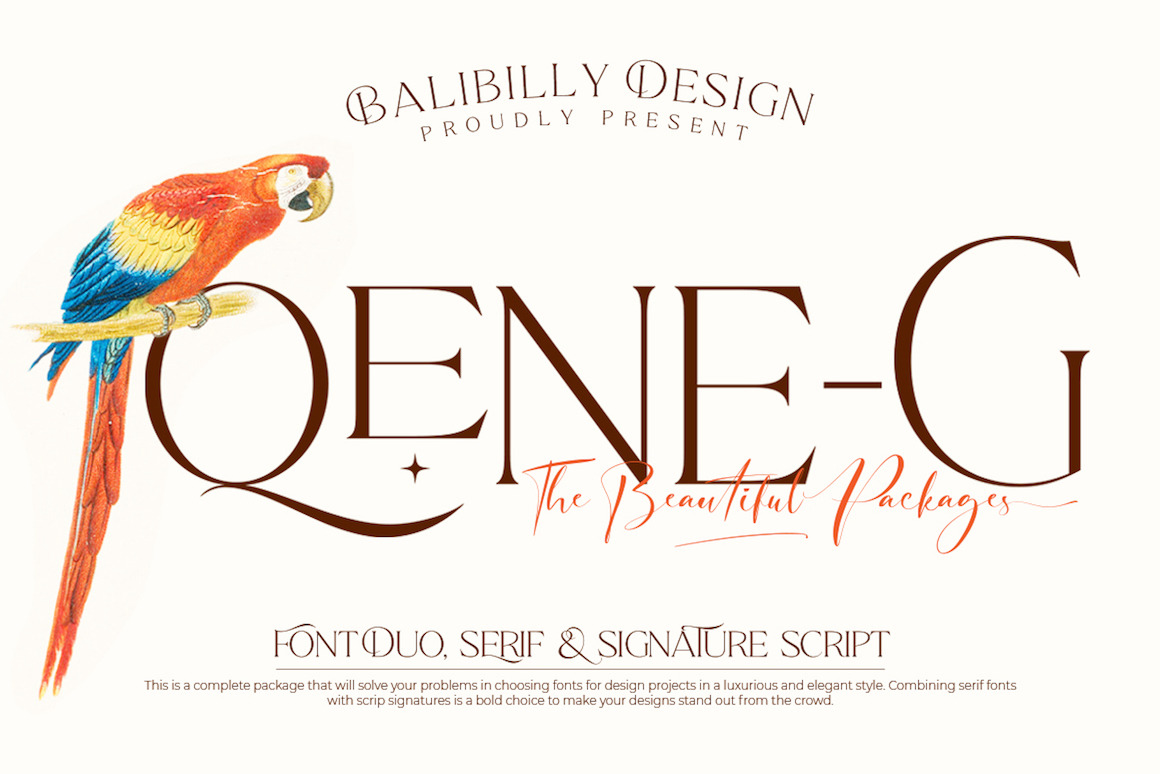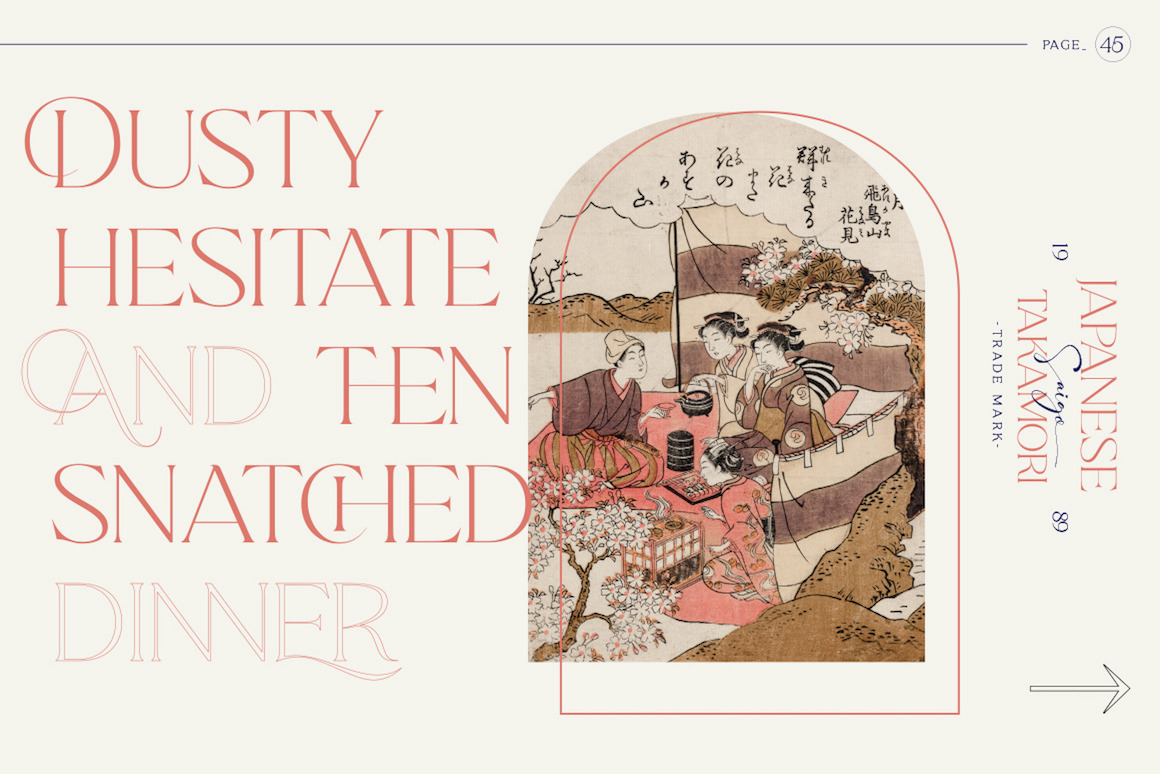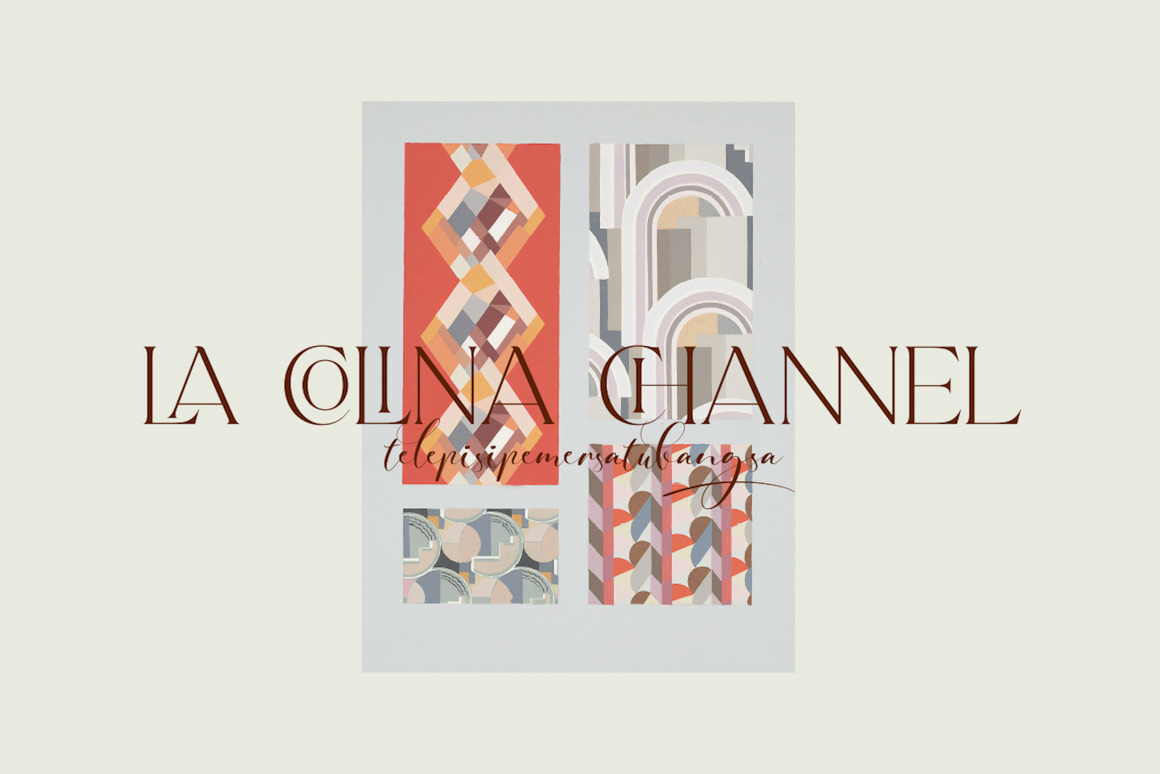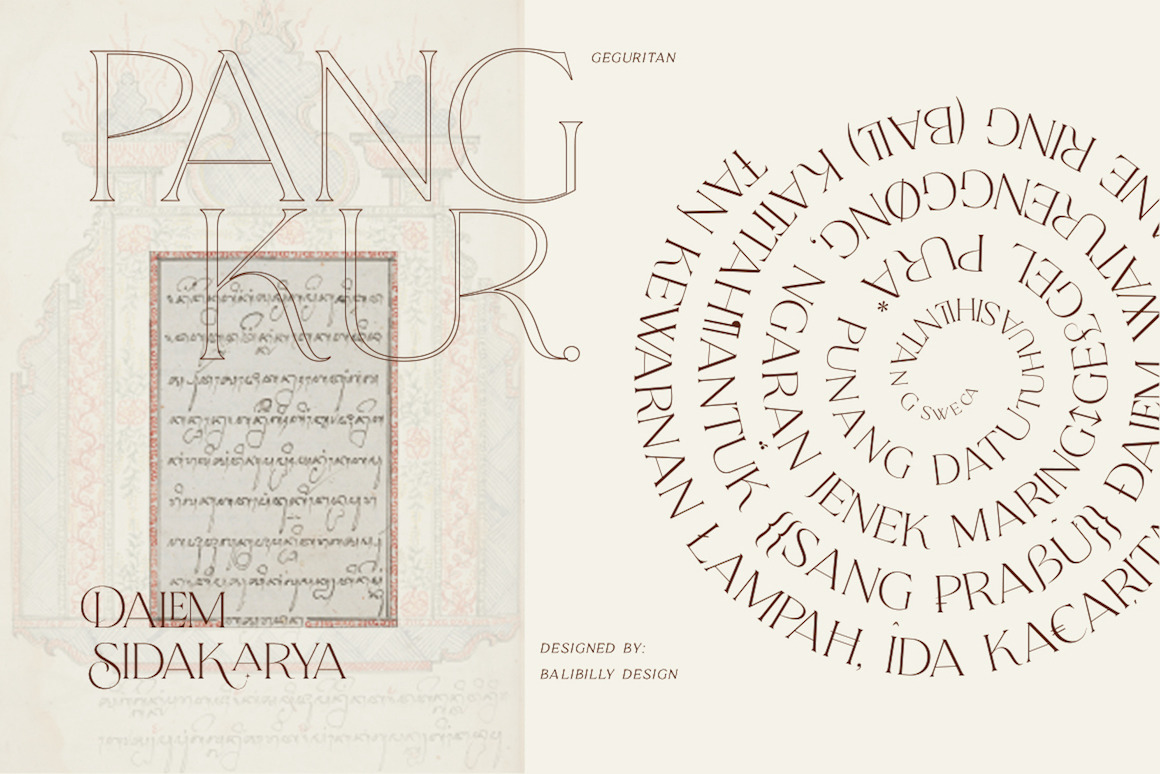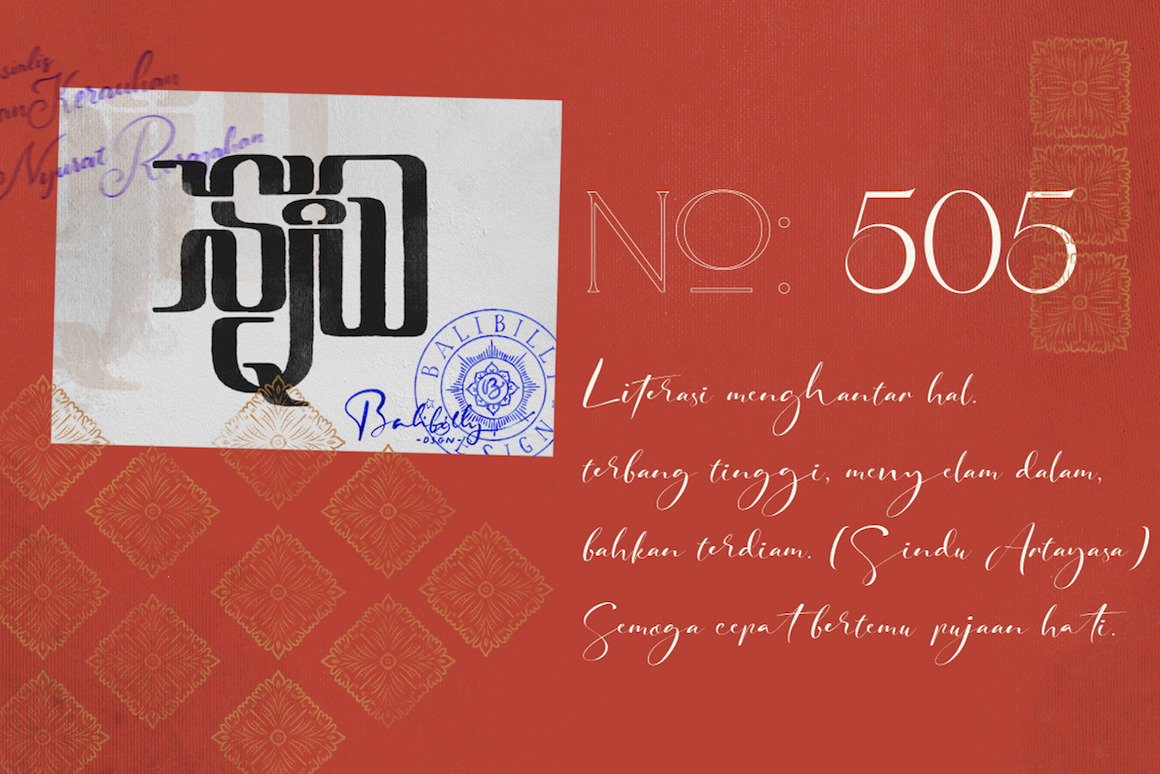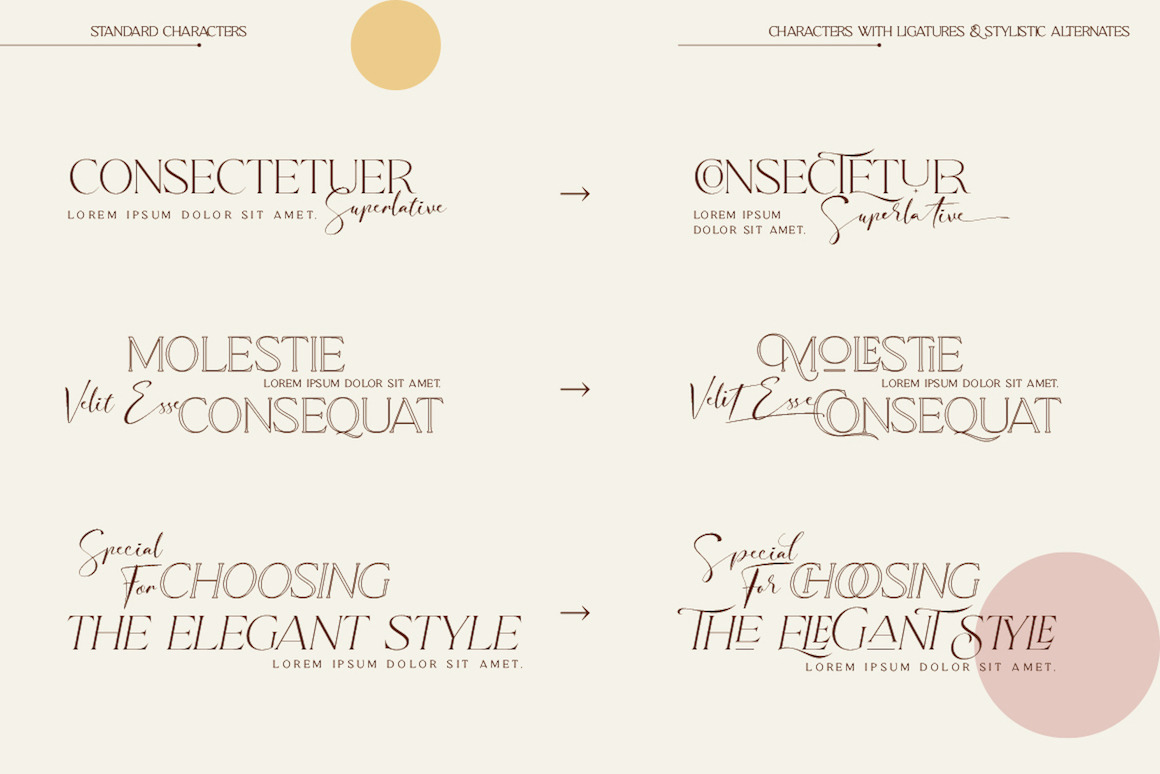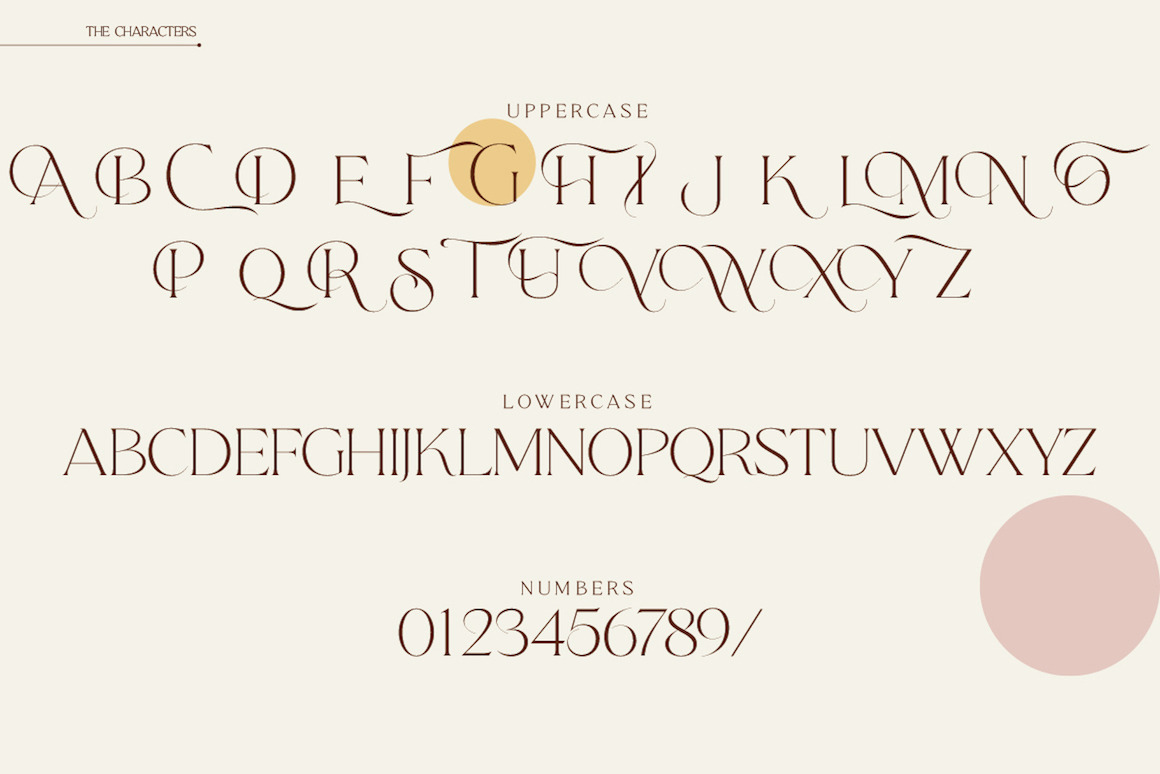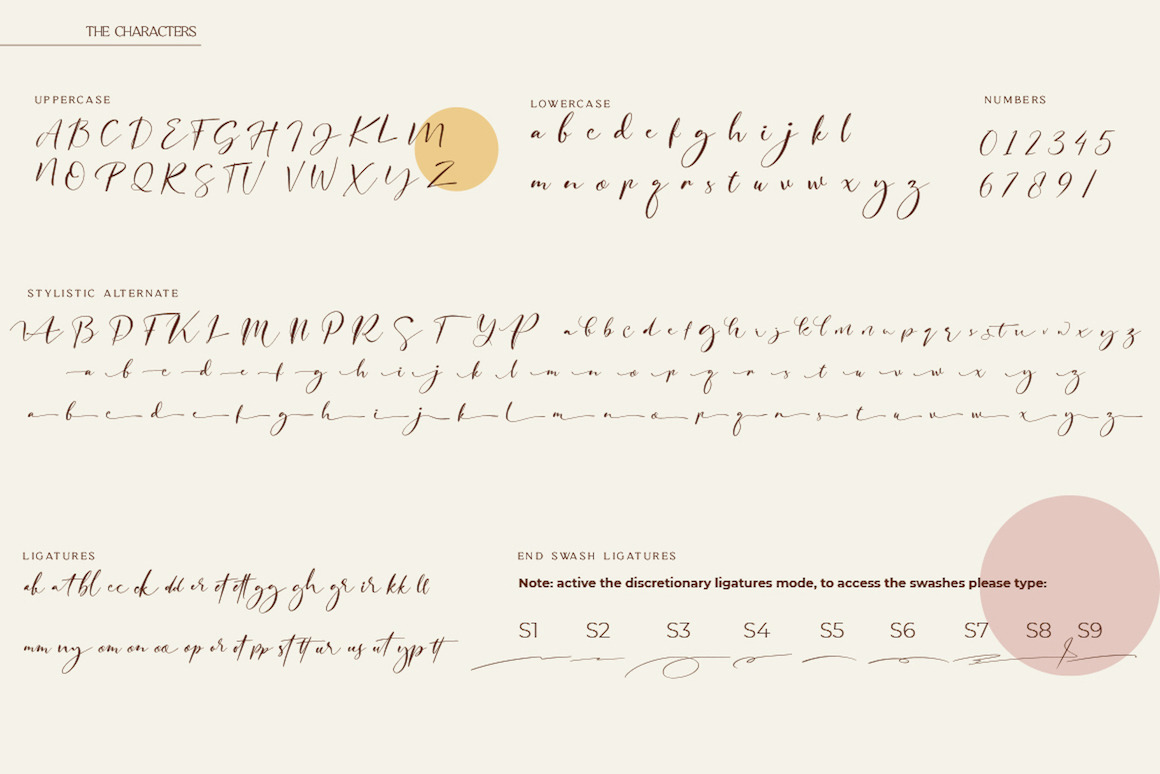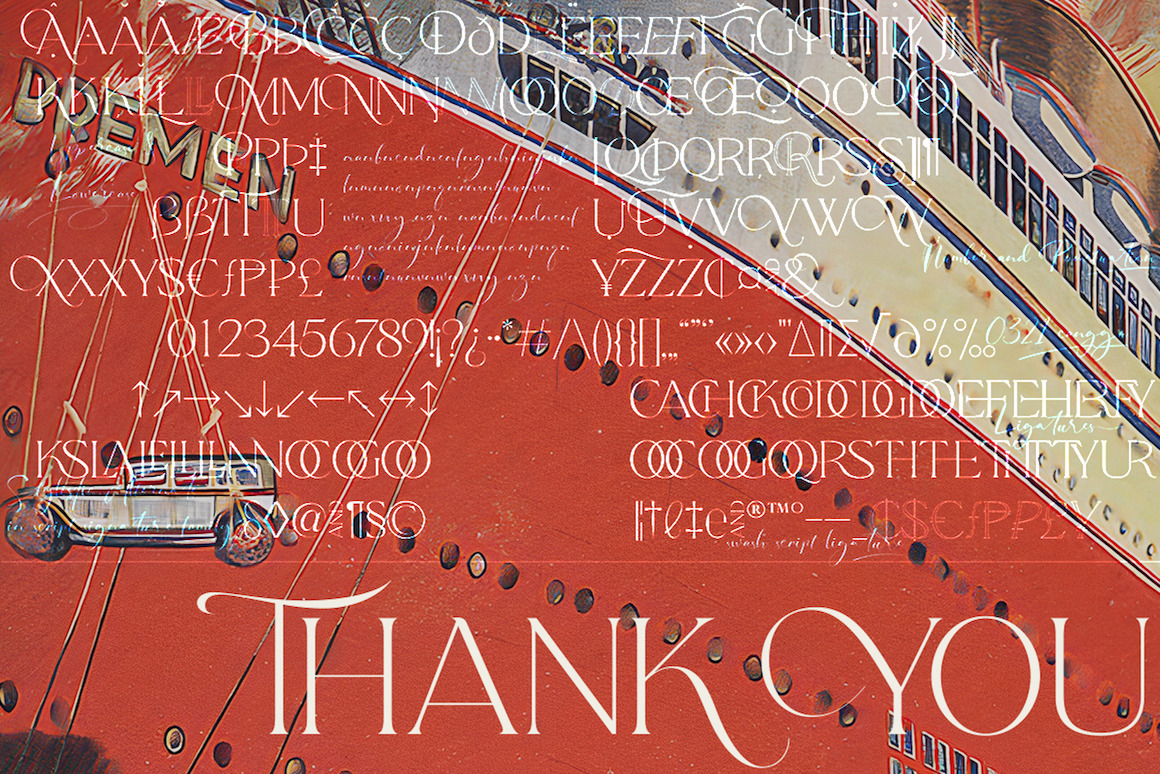
Qene-G Font Duo | Serif & Signature Script
Say hello to Qene-G Typeface,
Qene-G is based on a problem that often occurs when I design, which is to combining typefaces in typographic art. I am pretty sure you also in this problem, so Qene-G Typeface comes to solve the problem.
Qene-G is a complete package consisting of serif fonts and signature scripts. A careful approach makes this font give a luxurious and elegant taste to your project. Smooth curves, some flowy terminals, and flirty tails will make your project looks unique. The handmade signature combination emphasizes the style that you create in the natural beauty atmosphere.
Qene-G consists of 5 families, they are Qene-G-Regular, Qene-G-Regular Italic, Qene-G-Outline, Qene-G-Outline Italic, and Qene-G-Script. You will get all caps letters with 2 styles that you can access via uppercase and lowercase buttons, charming script fonts, and tons of ligatures and stylistic alternates. Complete with Unicode and PUA which allows you to access all features without graphic design software. Your project will travel around the world with 131 languages ​​of this font.
Qene-G is a strikingly versatile font, It is a bold choice for branding projects, fashion magazine imagery, social media text overlays, posters, website headers, and more. Let's start creating stand out designs with this font.
* Get 5 fonts in 1 spectacular family.
* stylistic alternates & ligatures.
* Supports 131 languages.
* Perfect for posters, logos, stationery, headlines, labels, books, magazines, newspapers, and more.